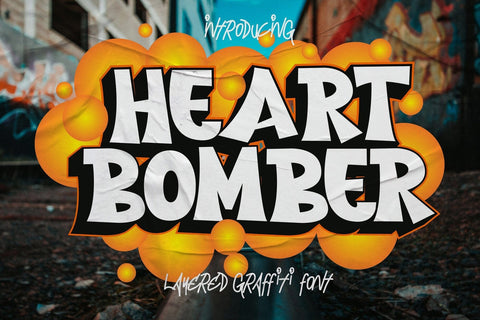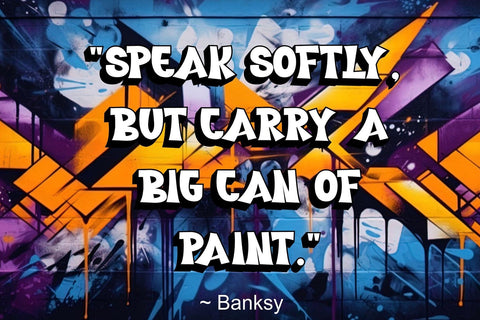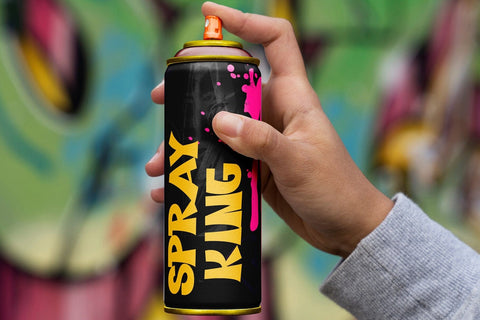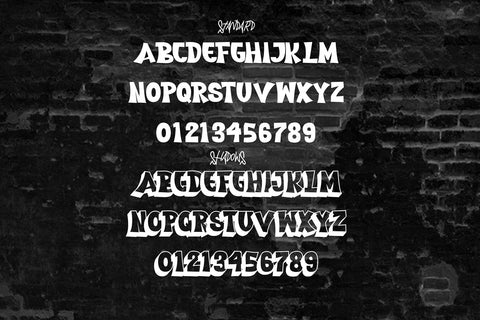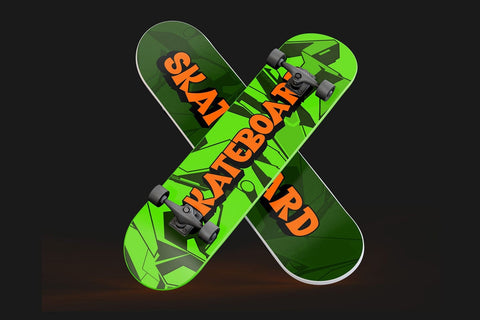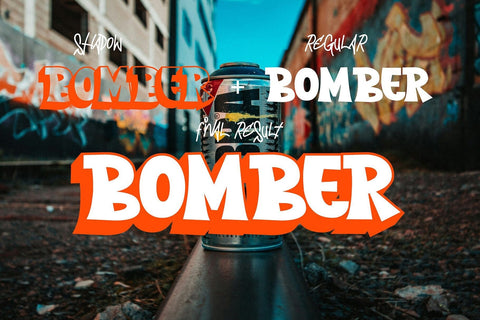
Heart Bomber - Shadow Graffiti Font
"Heart Bomber" is an edgy graffiti font featuring a unique shadow effect within each character. With its bold and dynamic design, this font captures the essence of urban street art style. The shadow detail adds depth and dimension to the typography, enhancing its visual impact and giving it a gritty urban chic vibe. Perfect for projects that require a bold and expressive typographic style, "Heart Bomber" brings a sense of urban energy and attitude to any design.
- Graffiti Characters looks